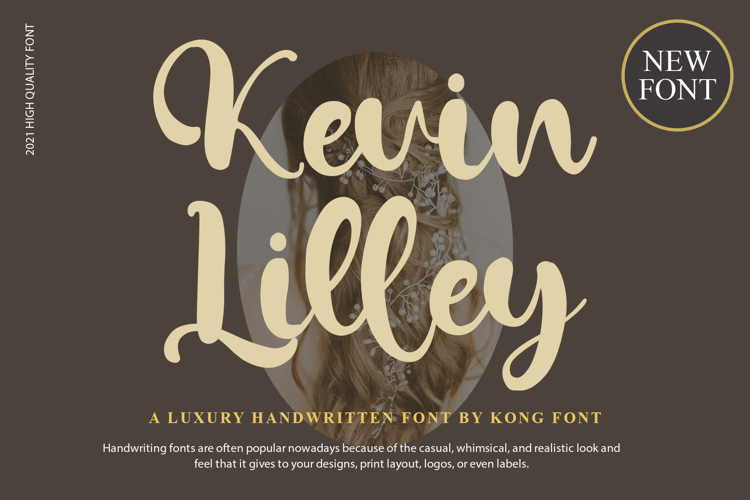
Kevin Lilley Font
Introducing our New Font, very suitable as to make adorable invitation for wedding, birthday, special day. A collection of letters and numbers suitable your projects also great for Logotype, Branding Design, Logo Design, Digital Lettering Arts, T-Shirt/Apparel, Poster, Magazine, Signs, Advertising Design, and also perfect for your other projects branding.